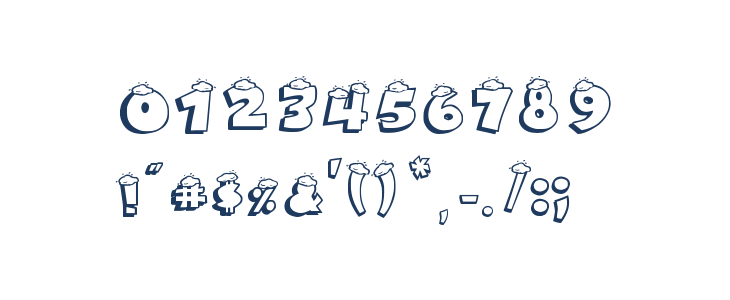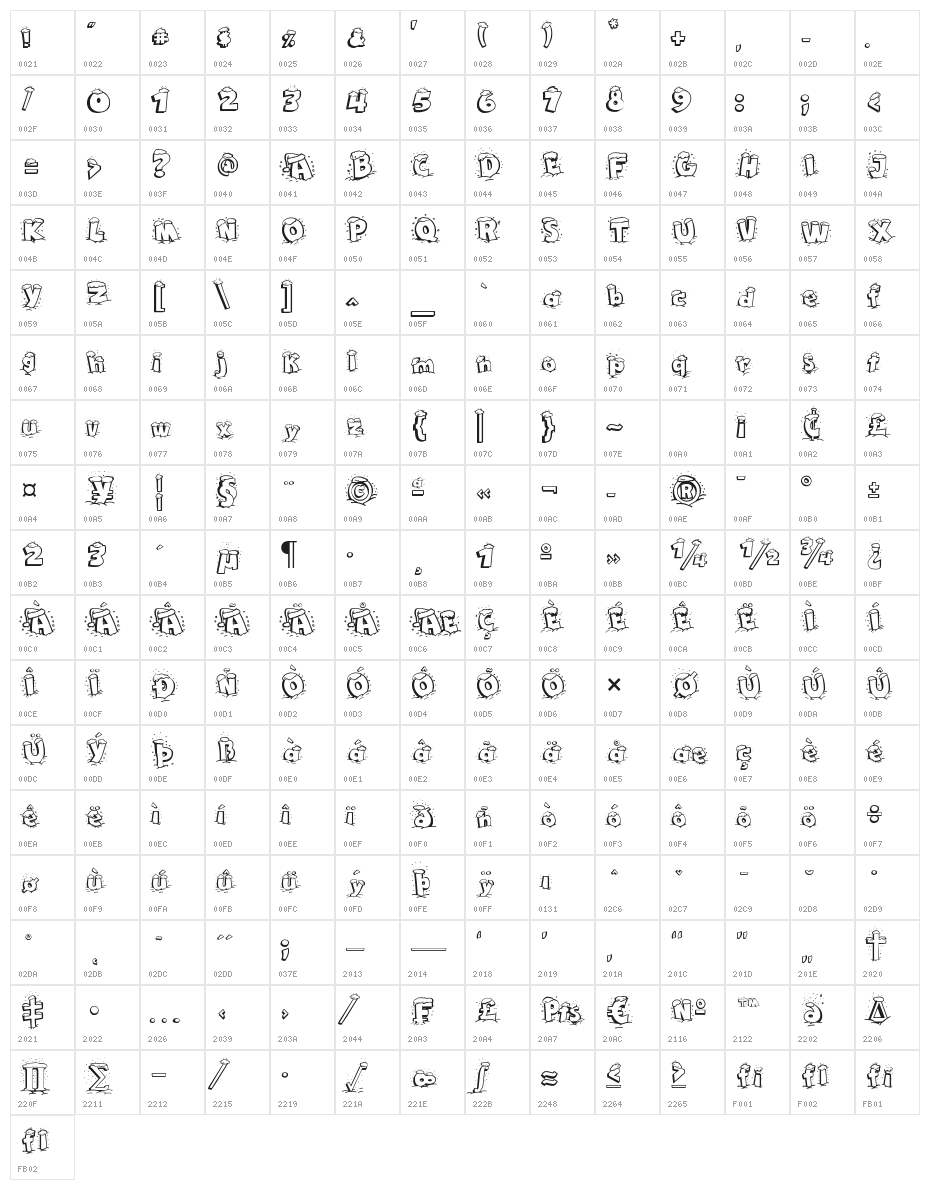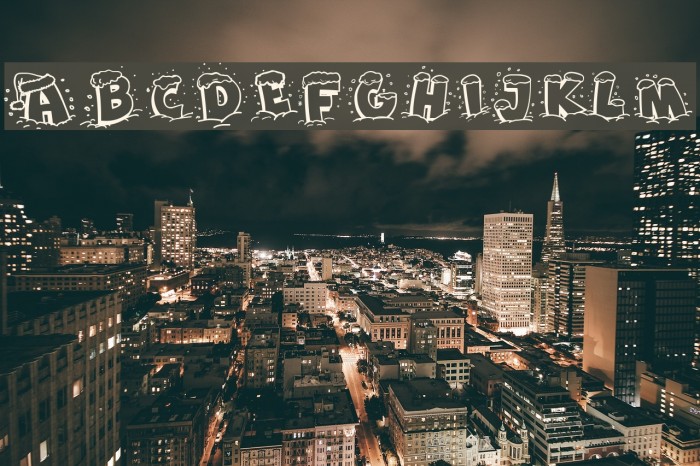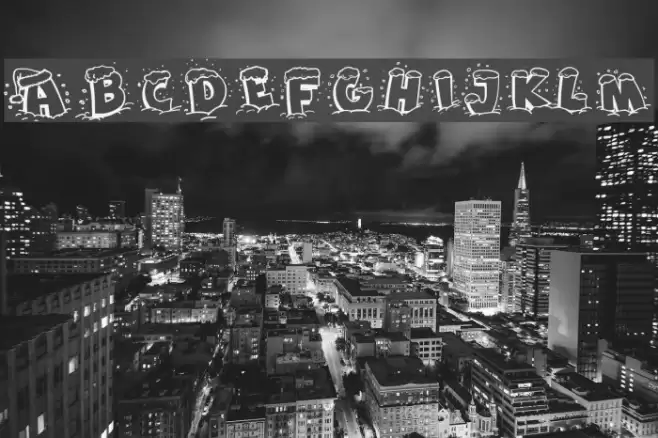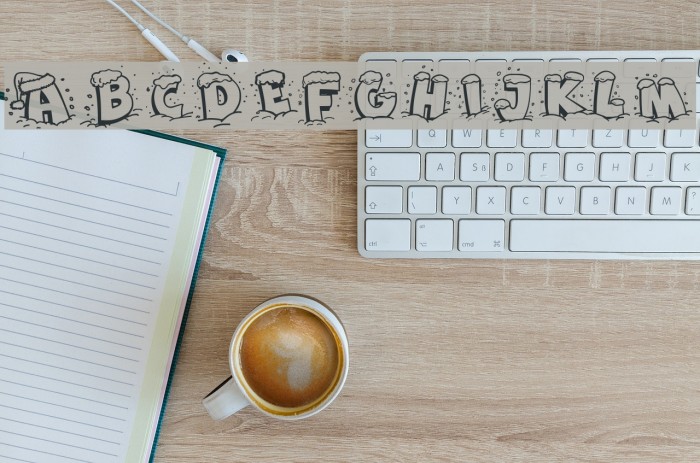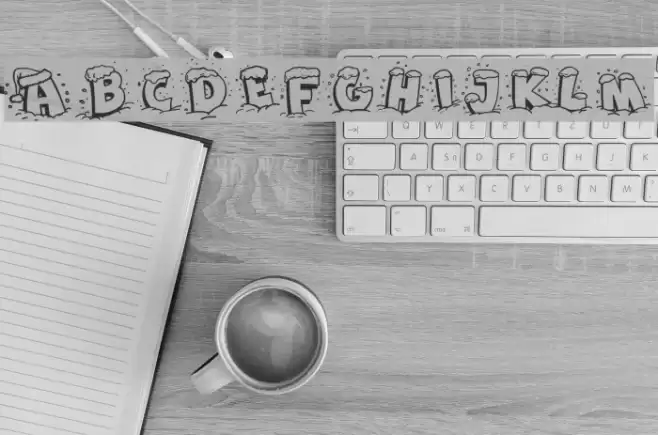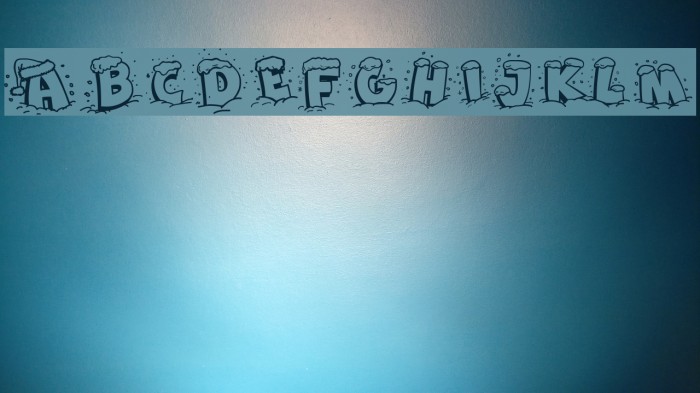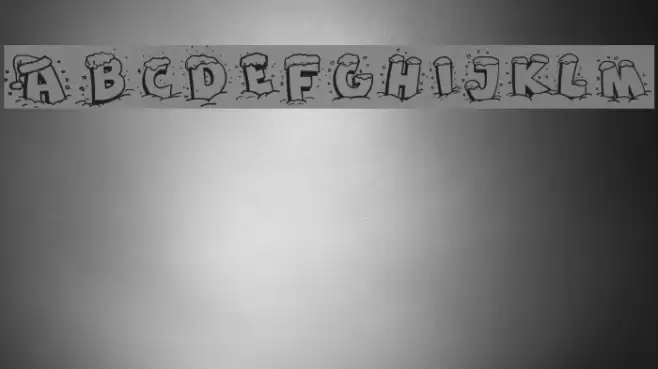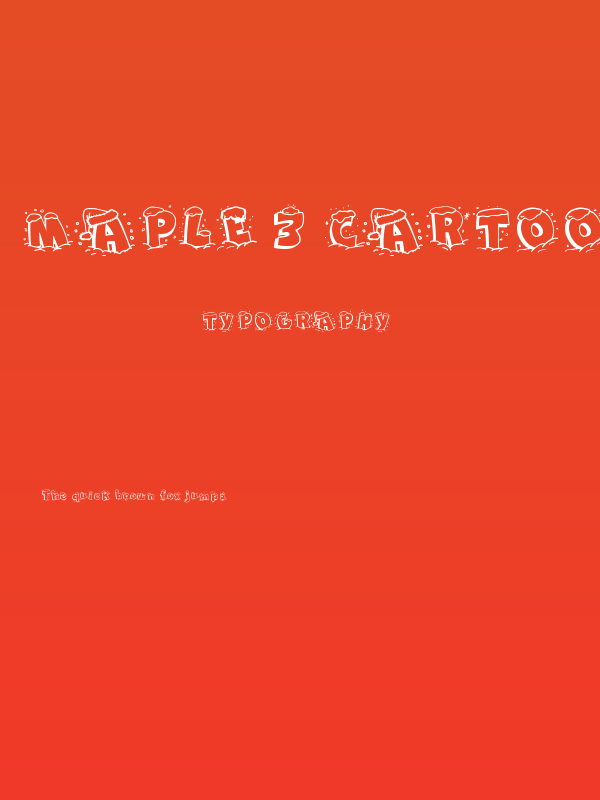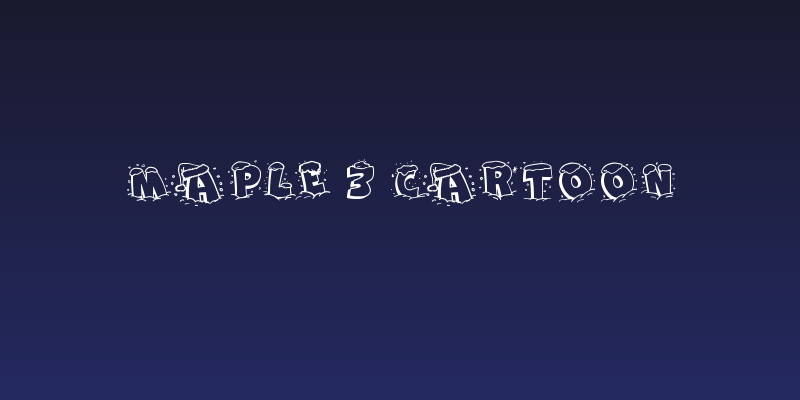
Maple 3 Cartoon Font
Maple 3 Cartoon Description
This playful and whimsical font features bold, cartoonish characters with a unique, hand-drawn style. Each letter is adorned with a playful, fluffy element on top, resembling snow or clouds, adding a fun and dynamic touch. The characters are outlined with a thick black stroke, enhancing their visibility and giving them a three-dimensional appearance. The font maintains a consistent, lively energy throughout, making it ideal for projects that require a lighthearted and engaging aesthetic. The numbers and special characters are equally animated, ensuring a cohesive look across all text elements.
| Overall Style | Cartoonish, Playful |
| Proposed Projects | Ideal for children's books, comic strips, playful branding, and festive event invitations. |